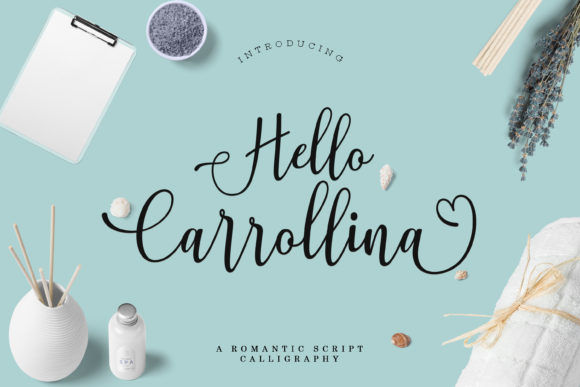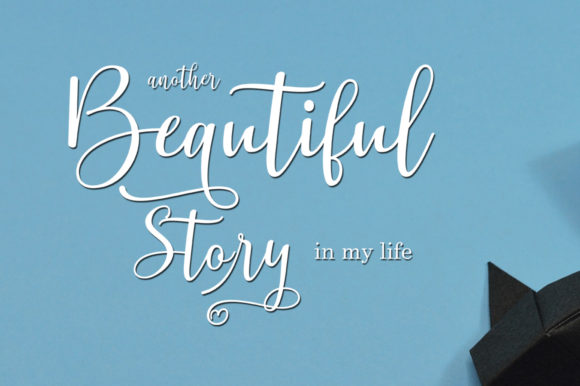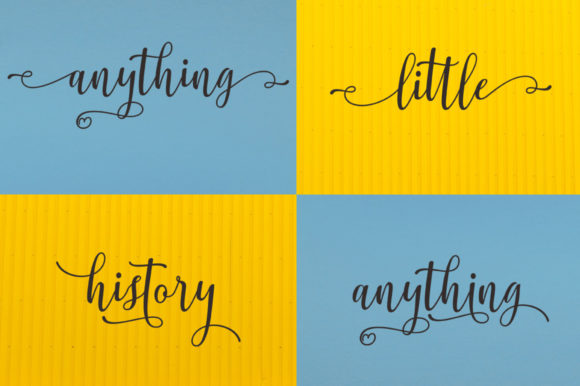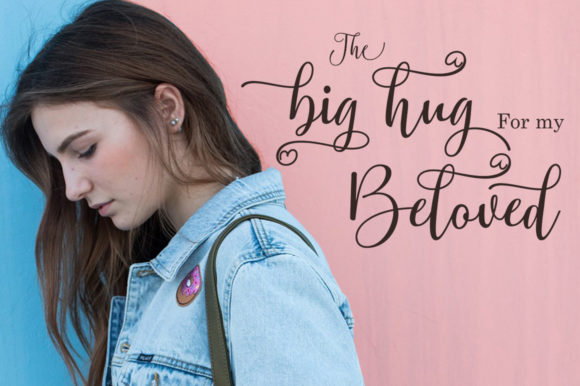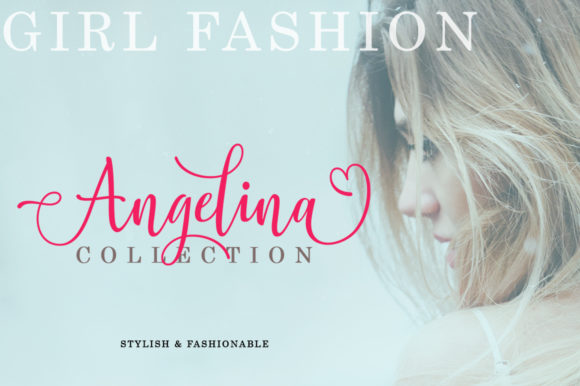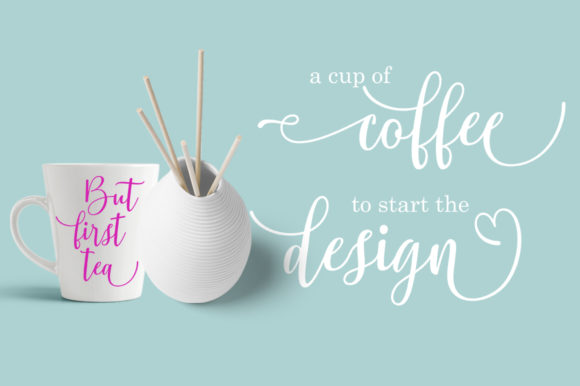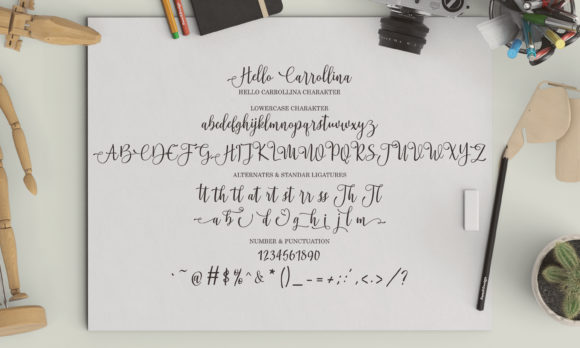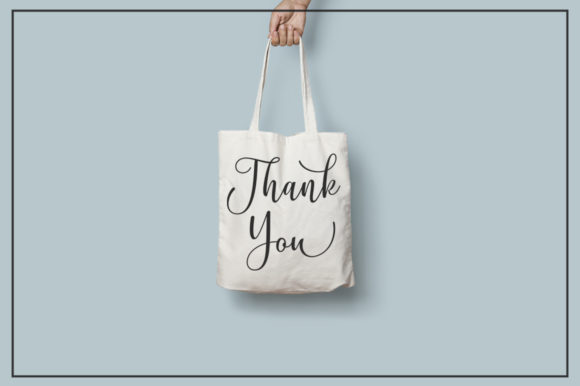
HomeScript FontsHello Carrollina Font Script Fonts Hello Carrollina Font FacebookXPinterestWhatsApp Hello Carrollina Font Poster 2 Hello Carrollina Font Poster 3 Hello Carrollina Font Poster 4 Hello Carrollina Font Poster 5 Hello Carrollina Font Poster 6 Hello Carrollina Font Poster 7 Hello Carrollina Font Poster 8 About Hello Carrollina Font Hello Carrollina is a stunning script font with beautiful swashes. Fall in love with its authentic charm. DOWNLOAD NOW People also explored Childish Font Prada Font Regulation Signature Font Gainer Font Beauty Ayes Font Ring Font Victoria Tech Font Marion Marijola Font Broisther Font 486 0 TagsHello Carrollina Font Previous articleMollaroid FontNext articleQorallee Woodrow Duo Font LEAVE A REPLY Cancel reply Comment: Please enter your comment! Name:* Please enter your name here Email:* You have entered an incorrect email address! Please enter your email address here Website: Save my name, email, and website in this browser for the next time I comment. Personal Use Free Eric”s Personal Use Free Read more about this font Choco Shake Font Personal Use Free Read more about this font Doodle Font Personal Use Free Read more about this font Pasile Personal Use Free Read more about this font BLOG Top 7 Google Fonts Alternatives for Faster and Privacy-Friendly Web Design (2025) Top 7 Google Fonts Alternatives for Faster and Privacy-Friendly Web Design (2025) When it comes to web typography, Google Fonts has long been the go-to... Free vs Paid Fonts: Why Investing in Premium Fonts Is Worth It Free Fonts Risk: Why Free Fonts Can Be Dangerous for Designers Top 10 Handwritten Fonts That Elevate Your Designs